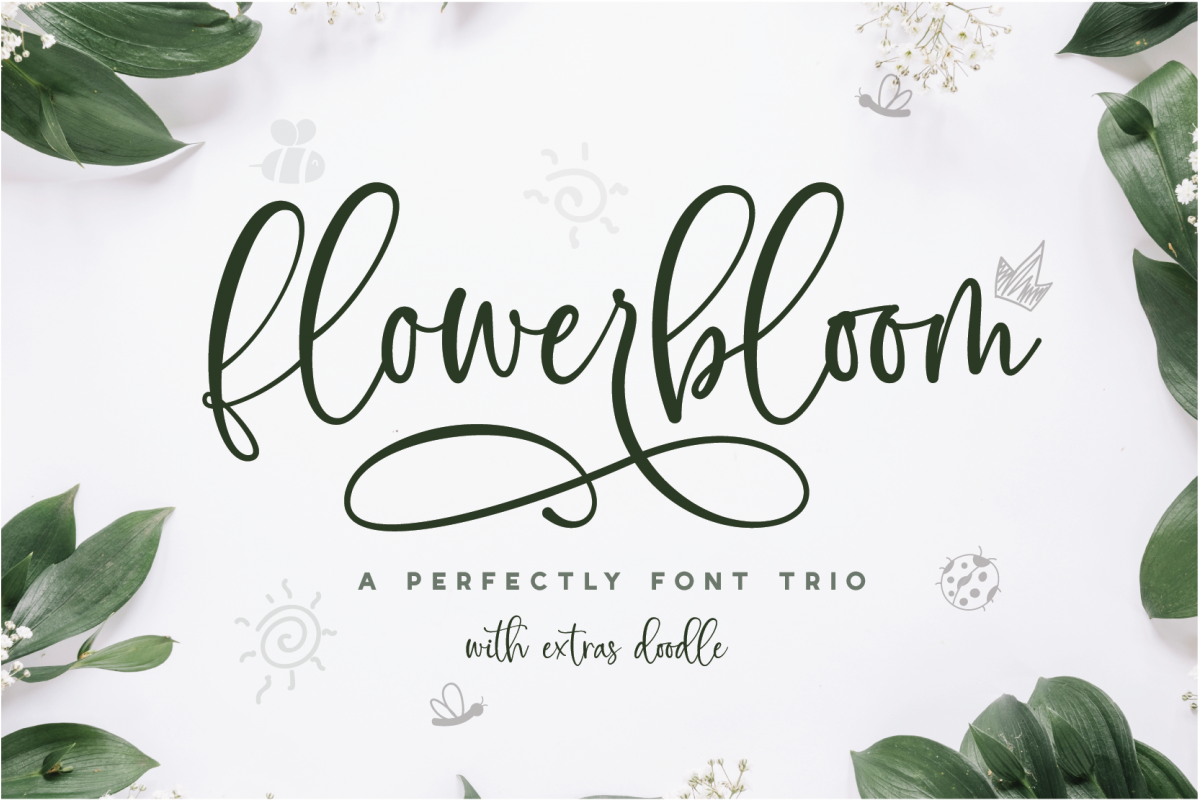
Flowerbloom Font Trio
Introducing Flowerbloom Font Trio & Extras Doodle , perfectly paired font Trio, that's ideal for quotes, social media, branding, packaging, overlays and more! Use this elegant combo on everything from logo design to Instagram quotes.
1. Flowerbloom Script
2. Flowerbloom Alternate
3. Flowerbloom Sans Bold
4. Flowerbloom Sans Cute
5. Flowerbloom Doodle 1
6. Flowerbloom Doodle 2
7. Bonus Doodle ( AI & EPS )
Flowerbloom  A perfectly paired, handwritten sans serif to go with just about every script. Use this typeface with Flowerbloom or any font that might need a straightforward font paring. (OTF & TTF)